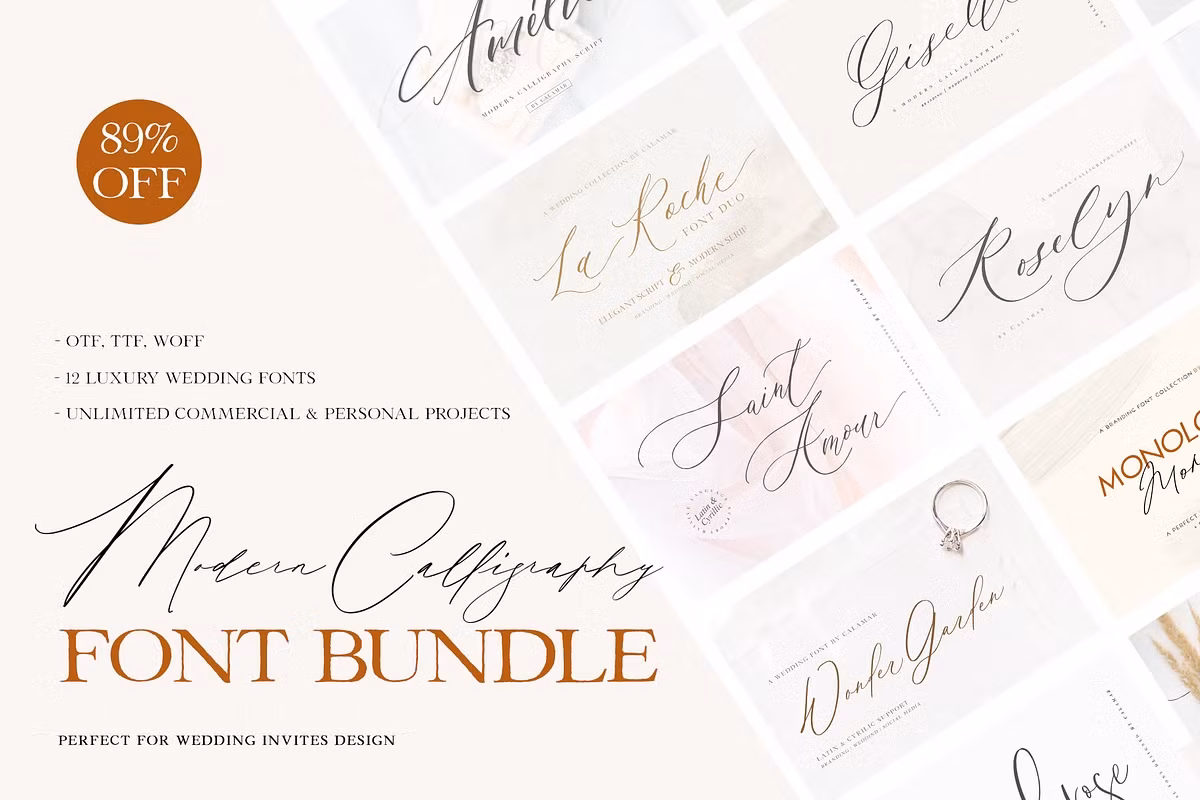
Modern Calligraphy Font Bundle Free Download is a beautiful collection of elegant and versatile calligraphy fonts designed to elevate your creative projects. Perfect for wedding invitations, branding, logos, greeting cards, and more, this bundle offers a variety of stylish handwritten fonts that add a personal and sophisticated touch to any design. With a range of modern calligraphy styles included, this bundle provides everything you need to create stunning, custom typography for your projects.